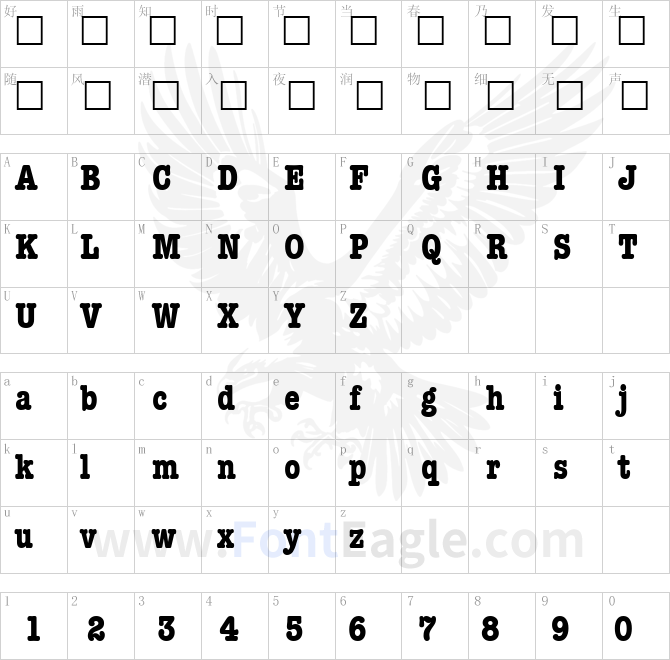
- Font name:TypewriterCond
- Font Full Name:TypewriterCond Bold
TypewriterCond-Bold is a great font, widely used in graphic design, single-page menu design, poster design and other fields, and is deeply loved by designers.TypewriterCond-Bold download.